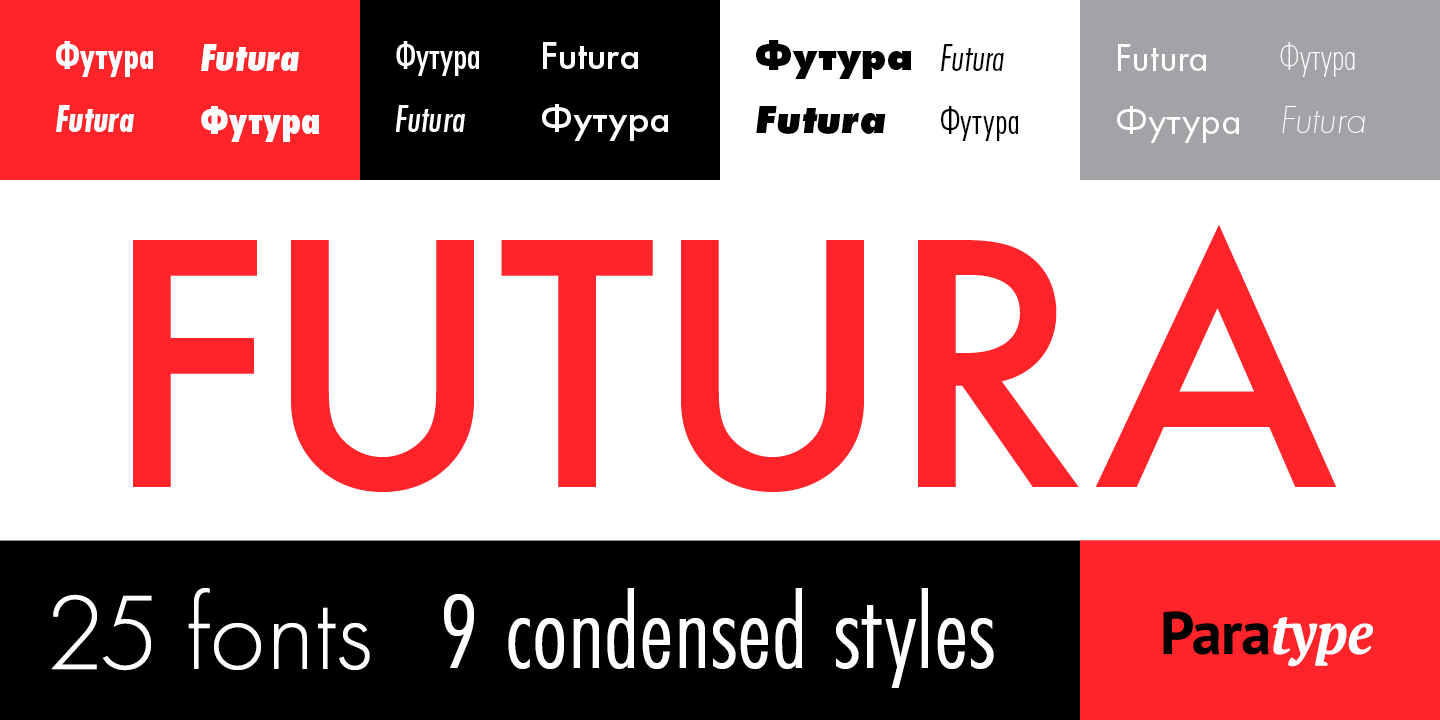
This geometric sans-serif typeface is perfect for modernist branding, architectural firms, tech companies, space agencies, avant-garde design, minimalist products, contemporary art, scientific publications, and futuristic logo design.
Futura PT Font brings excitement to your design projects with its visionary geometry and timeless modernism. This revolutionary sans-serif font features pure geometric construction based on perfect circles and precise angles, making it ideal for brands that embody progress and forward-thinking innovation. The font's clean rationality and mathematical perfection create immediate visual authority while ensuring excellent legibility across all contemporary applications.
The Futura PT Font family includes light, book, medium, demi, bold, and extra bold weights, plus condensed variations and obliques. This comprehensive range provides designers with complete geometric flexibility for creating systematic brand communications that celebrate the beauty of pure form and functional design.
Launch your brand into the future with Futura PT Font Free Download today. This visionary typeface combines Bauhaus principles with contemporary functionality, making it indispensable for progressive brand communications. Whether you're designing tech startup identities, creating architectural presentations, or developing space-age marketing materials, this font delivers futuristic results with its geometric character and modernist excellence.
The mathematically perfect letterforms ensure consistent geometric harmony across all applications. Download Futura PT Font now and embrace the future of typography with this revolutionary design solution that has shaped modern communication for nearly a century with unwavering geometric precision and visionary beauty.